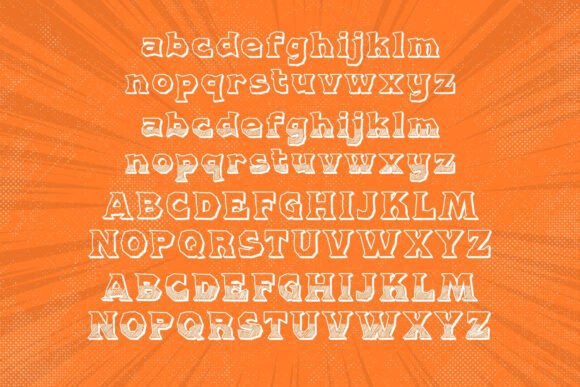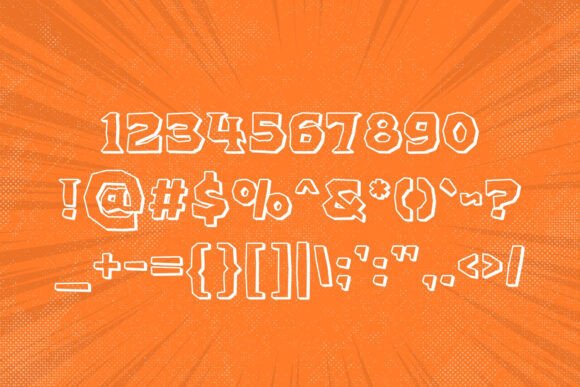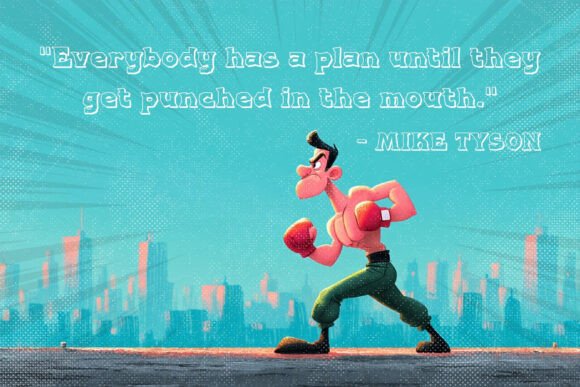
Introduction to Nutty Knockout Font
Remember the thrill of cracking open a vintage comic book, the colors bursting forth, and the characters springing to life on the page? That same sense of excitement and energy is exactly what the Nutty Knockout Font embodies. A high-energy typeface inspired by the wild world of old-school comic books and Saturday matinees, this font is about to become your go-to design resource for anything that needs a knockout punch.
Whether you’re working on a creative project that requires a bold, eye-catching headline or a social media graphic that needs to pop, the Nutty Knockout Font is here to deliver. With its explosive letterforms and dramatic flair, this font is guaranteed to leave an impact and make your designs stand out from the crowd.
Key Features of Nutty Knockout Font
- Unique and playful design, perfect for creative projects and high-quality print materials.
- Transparent background, allowing for easy customization and versatility in design.
- Designed to add a touch of whimsy and personality to any design project, from posters and flyers to digital graphics and more.
- Perfect for designers, artists, and creatives looking for a unique and eye-catching font to elevate their work.
Honest Review: Nutty Knockout Font
I recently had the chance to work with the Nutty Knockout Font, and I must say it’s a unique addition to any design project. ✨ The high-quality font has a quirky, playful feel that’s perfect for creative projects that need a bit of personality.
Here are some of the things that work well:
- Unique and quirky design
- High-quality and crisp typography
- Transparent background for easy pairing
That being said, there are a few limitations:
- Limited character set, which may be a concern for longer text projects
- May not be suitable for formal or professional designs
Overall, I’m impressed with the Nutty Knockout Font’s creativity and playfulness. While it may not be suitable for every project, it’s a great addition to any design resource and is definitely worth checking out.
To get the most out of Nutty Knockout Font, experiment with different font sizes, colors, and combinations. This font is highly versatile and can be used in a variety of creative ways. Don’t be afraid to think outside the box and come up with unique design ideas.
Nutty Knockout Font is ideal for a wide range of creative projects, including logos, infographics, presentations, reports, and business cards. Its high-quality design and transparent background make it a valuable design resource for any project.